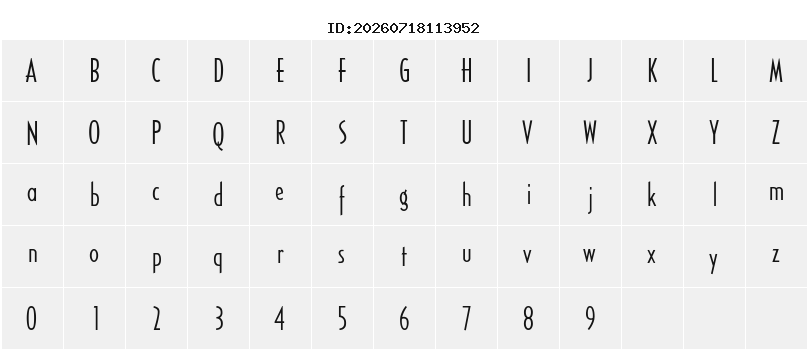
• Font Name: CassandraConden
• Full Font Name: CassandraConden
• PostScript Name: CassandraConden
• Copyright: CassandraCondensed Generated by Fontographer 3.3
About CassandraConden.ttf
CassandraConden.ttf is a modern, elegant sans-serif font designed for ultimate readability and visual harmony. Perfect for branding, headlines, web design, and print materials.